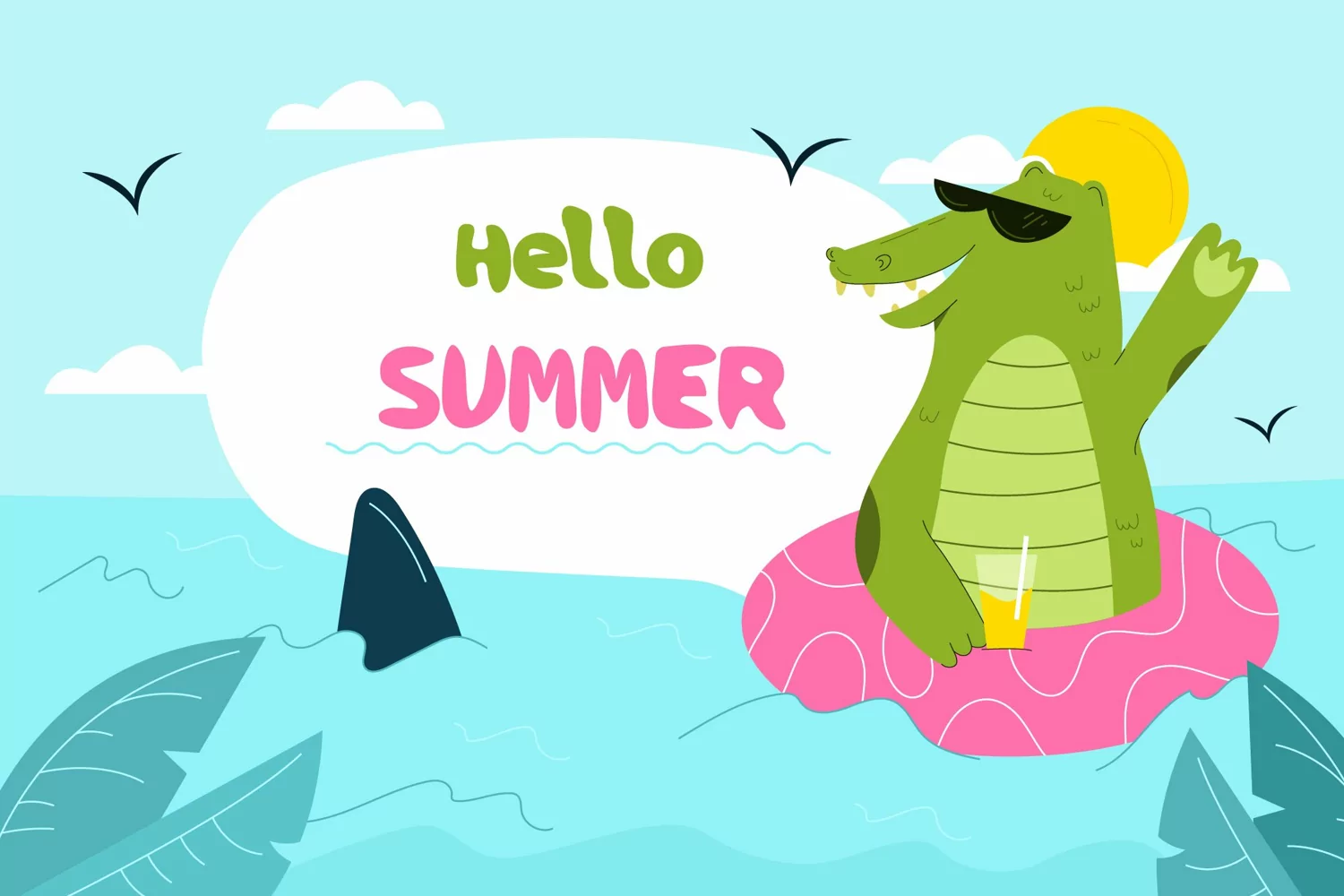
Paradiso is summer casual font.
This font is perfect for a summer or beach themed design. It looks like a happy, fun font. Overall, it is a great font for summertime, it was created with a tropical theme in mind.
This fun and unique summer font is perfect for adding a touch of paradise to your next project! Whether you're looking for a title font for your vacation scrapbook or a tropical-themed party invitation, Paradiso Tropical is sure to make a statement. This font includes upper and lowercase letters, numbers, and punctuation.